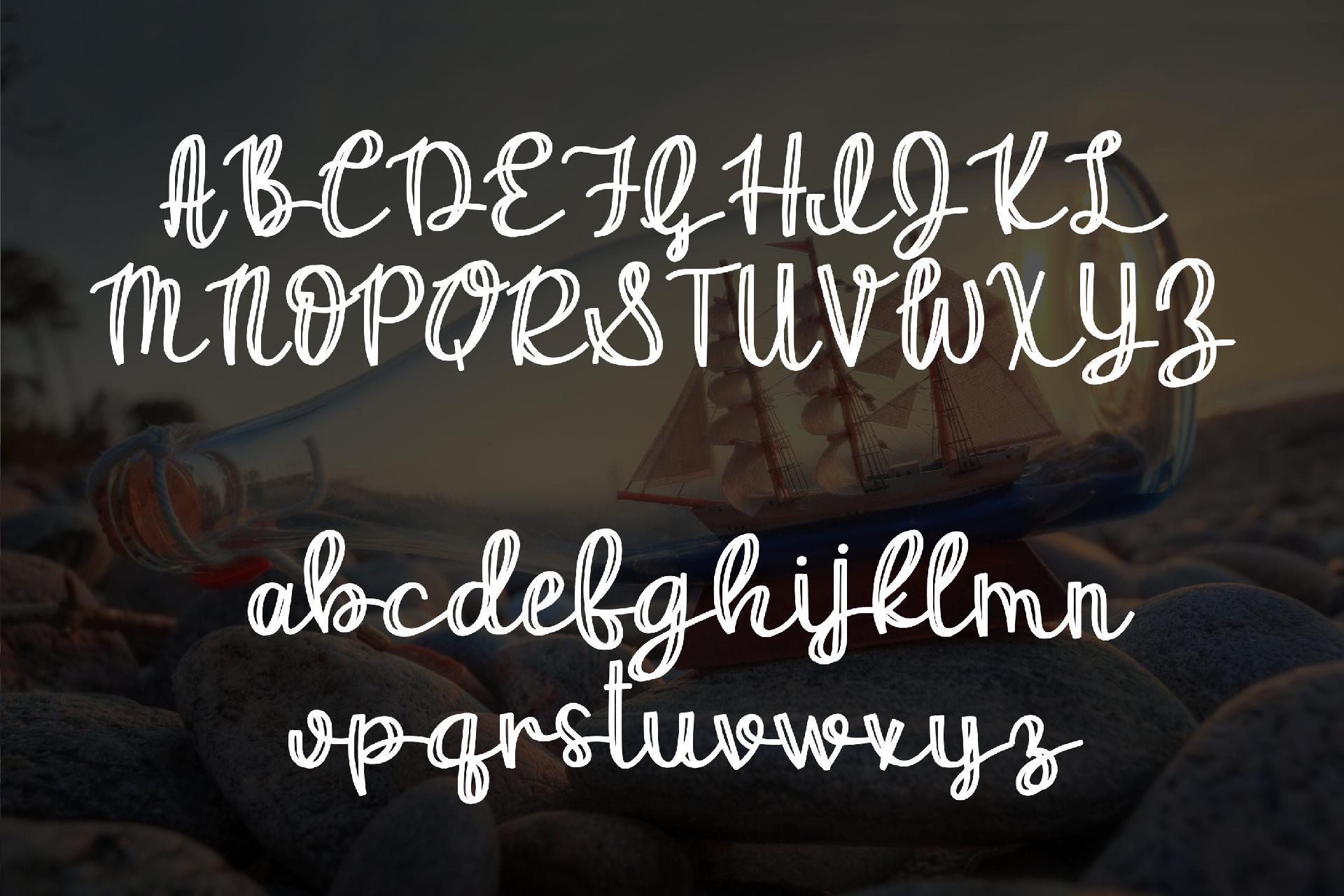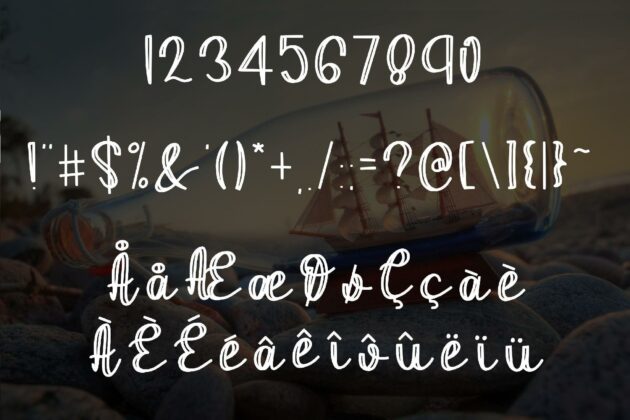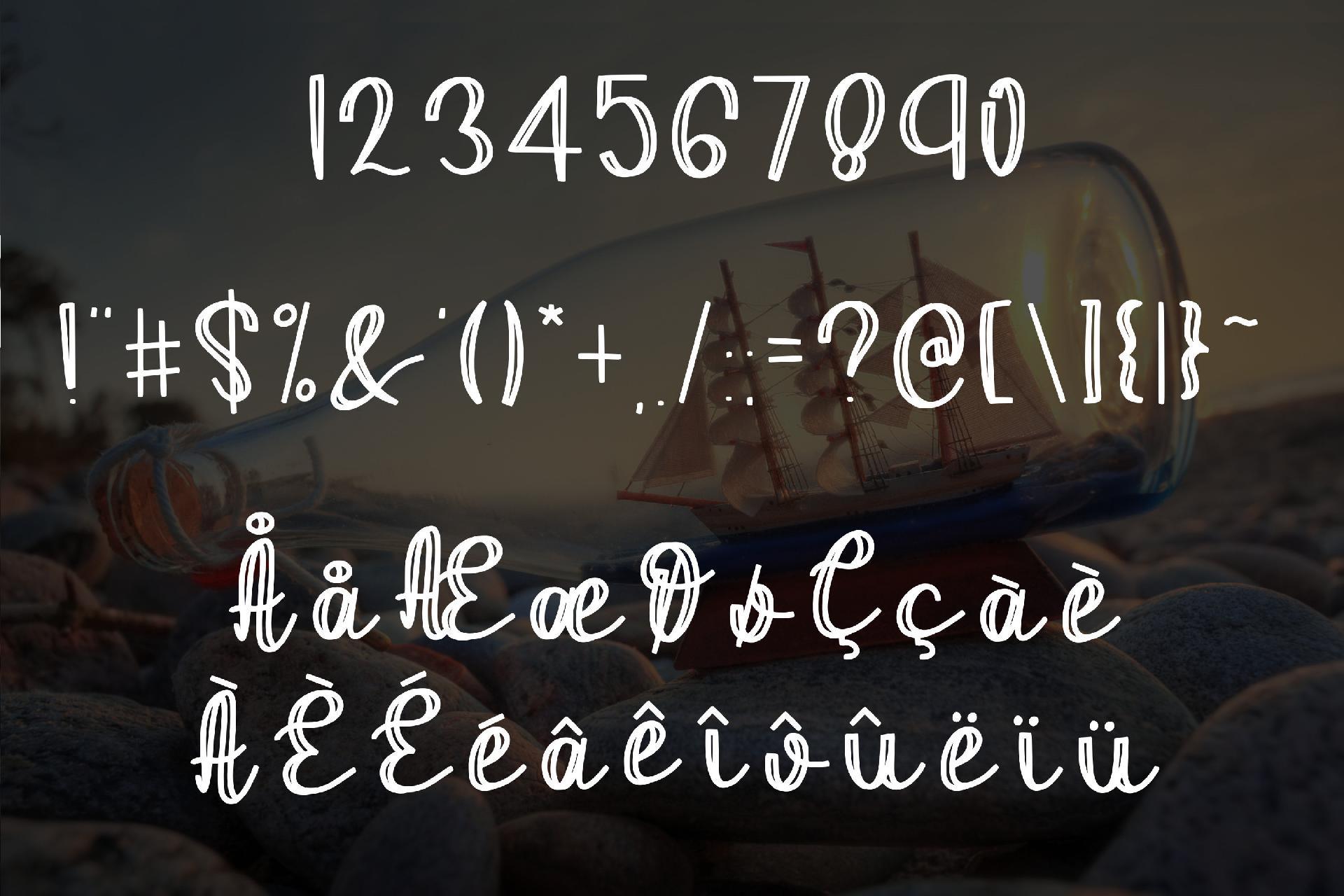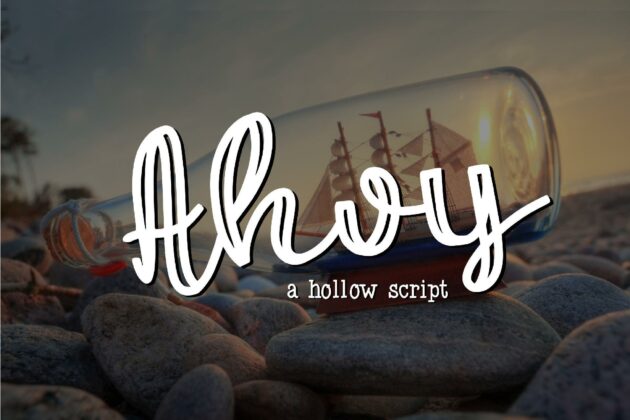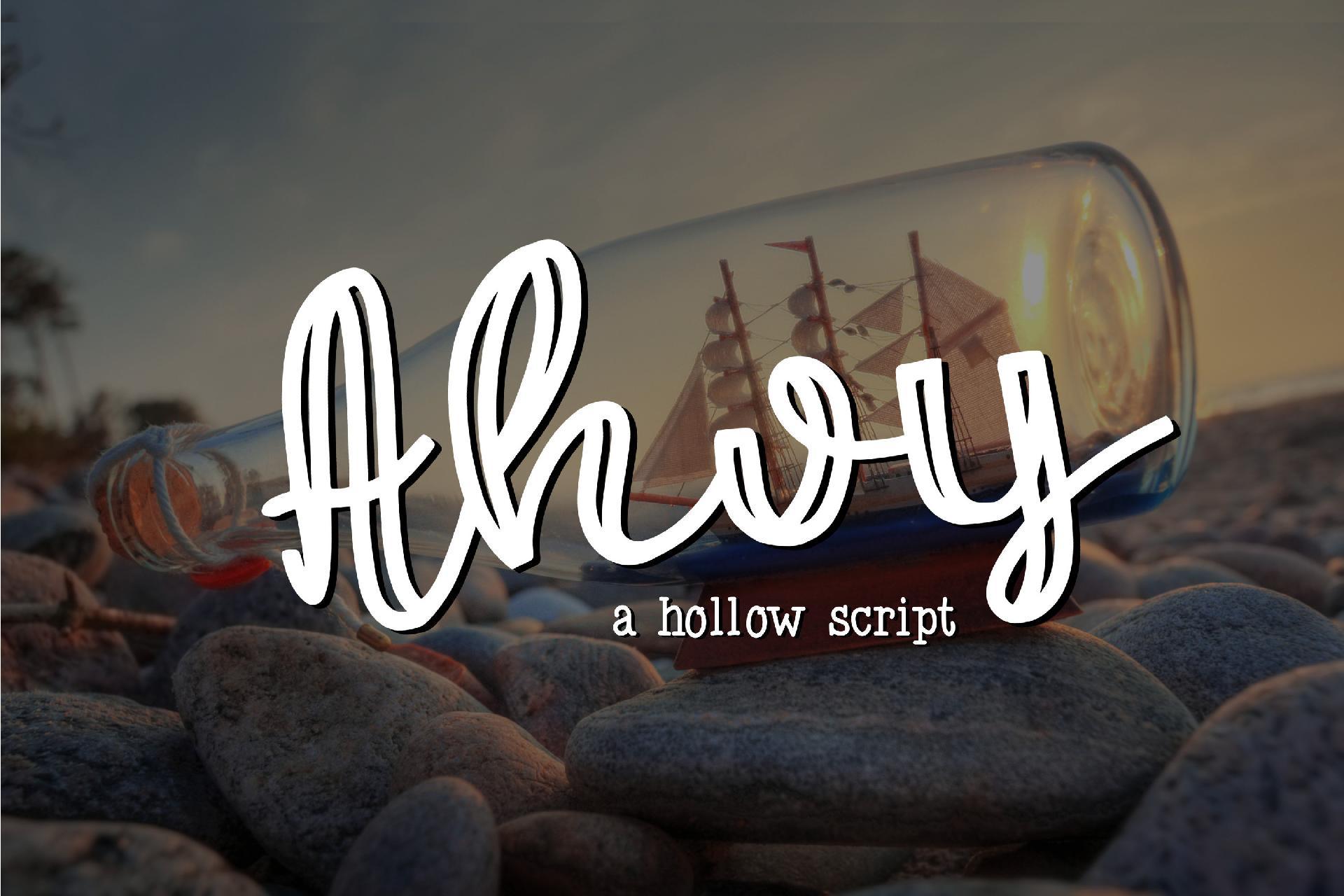
HomeScript FontsAhoy Script Fonts Ahoy FacebookXPinterestWhatsApp 1 of 3 ... ... ... About Ahoy Ahoy is a hallow script perfect to add to your collection. DOWNLOAD NOW People also explored Belove Font Lovely Moment Font Hello Too Font Cattapilla Micelina Font Summer Signature Font White Lily Line Monogram Font Orange Grove Font Mens Army Bella Canvas 3001 Tee Mockup 331 0 TagsAhoy Previous articleLove maliaNext articleBellagia LEAVE A REPLY Cancel reply Comment: Please enter your comment! Name:* Please enter your name here Email:* You have entered an incorrect email address! Please enter your email address here Website: Save my name, email, and website in this browser for the next time I comment. Personal Use Free Bukhari Script Personal Use Free Read more about this font Burnstown Dam Personal Use Free Read more about this font Fillguy Font Personal Use Free Read more about this font Kellana Personal Use Free Read more about this font BLOG Free Fonts Risk: Why Free Fonts Can Be Dangerous for Designers Free Fonts Risk: Why Free Fonts Can Be Dangerous for Designers Using free fonts is a common practice in web and graphic design. However, the... Free vs Paid Fonts: Why Investing in Premium Fonts Is Worth It Modern Sans-Serif Fonts That Brands Love in 2025 Exploring Font Trends